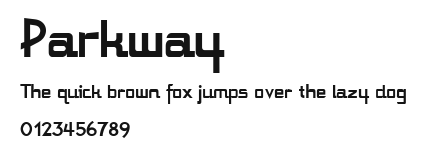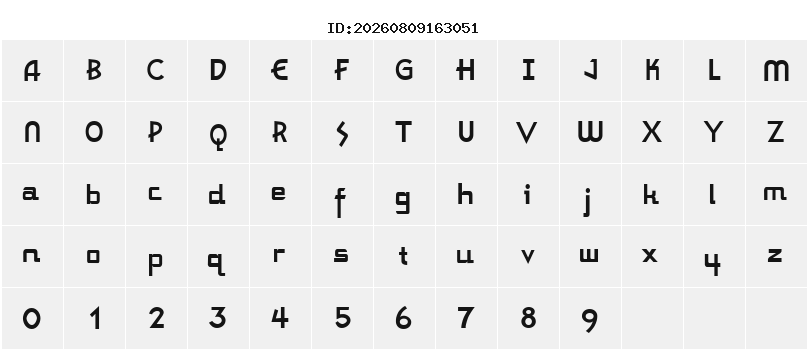
About Parkway.ttf
Parkway.ttf is a modern, elegant sans-serif font designed for ultimate readability and visual harmony. Perfect for branding, headlines, web design, and print materials.